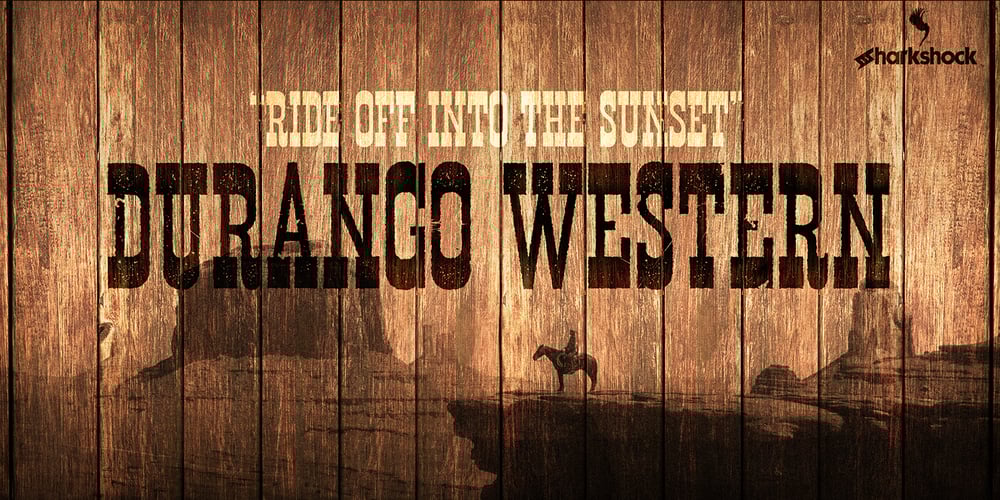
Durango Western Font Family was designed by Dennis Ludlow and published by Sharkshock. Durango Western contains 2 styles and family package options. This all caps display font is defined by its close spacing and thick serifs for a distinct appearance. Inspiration came from old movies set in the Wild West. The characters are tall in stature so works well in spots with limited space. Use Durango Western for a wanted poster, social media, or team logo. Basic/Extended Latin, European accents, punctuation, diacritics, kerning, and Cyrillic characters are included. The eroded version features varying levels of distress between the uppercase/lowercase and contains a few alternates. NOTE: Due to the level of detail in the eroded version temporary computer slowdown may occur.